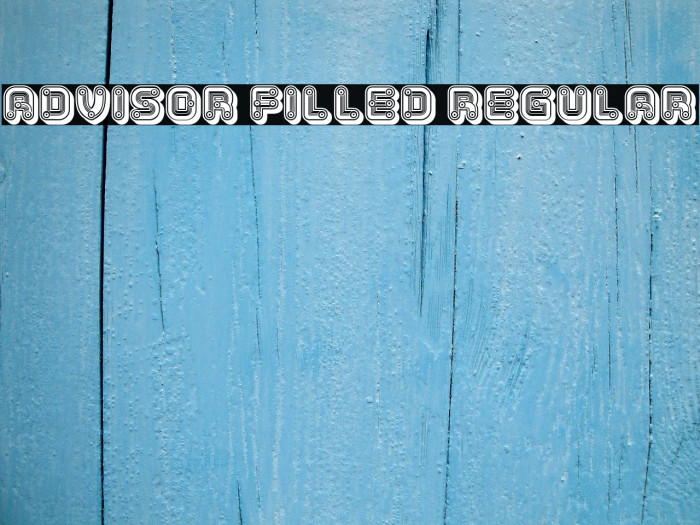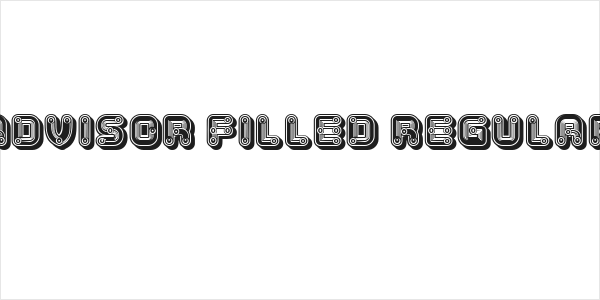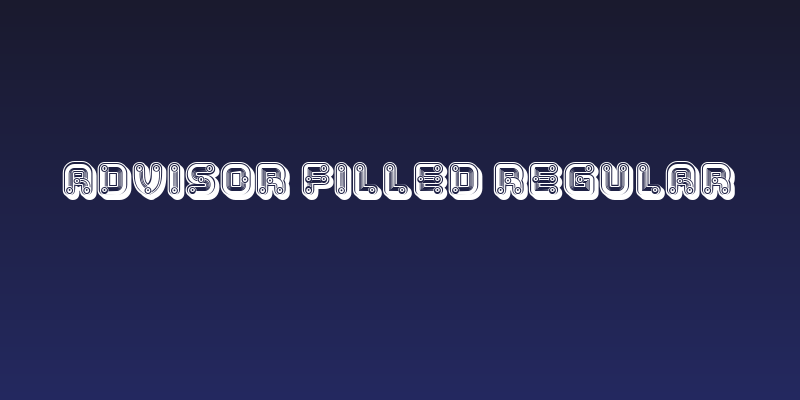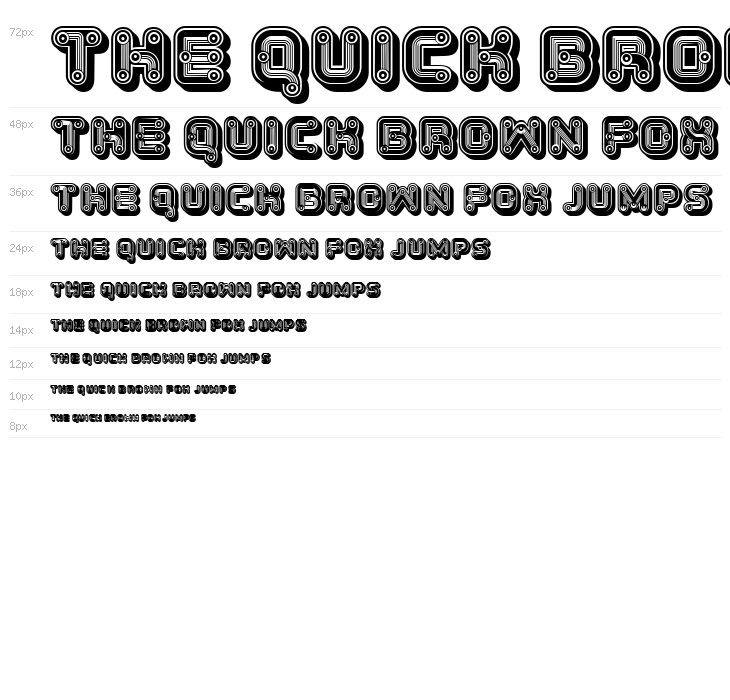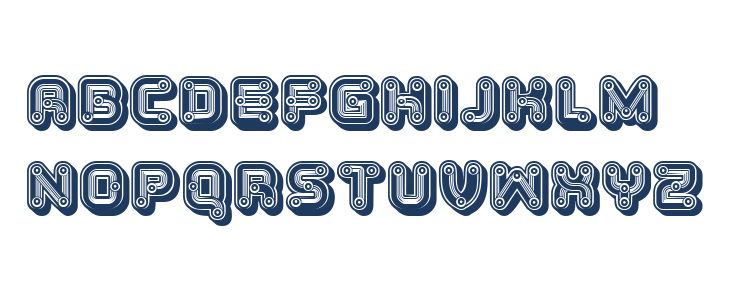
Advisor Filled Regular Font
Advisor Filled Regular Description
This font features a bold, decorative style with a futuristic and technological appearance. Each character is outlined with multiple layers, creating a three-dimensional effect. The design incorporates circuit-like patterns within the letters, adding a unique, intricate detail. The font is highly stylized, making it ideal for projects that require a modern and tech-savvy look. The characters are evenly spaced, ensuring readability despite their complex design. The overall aesthetic is both eye-catching and sophisticated, suitable for digital and print media.
| Overall Style | Futuristic, Decorative |
| Proposed Projects | Ideal for technology branding, sci-fi themed posters, video game titles, and digital media. |